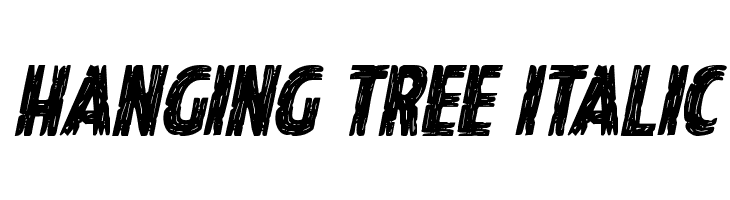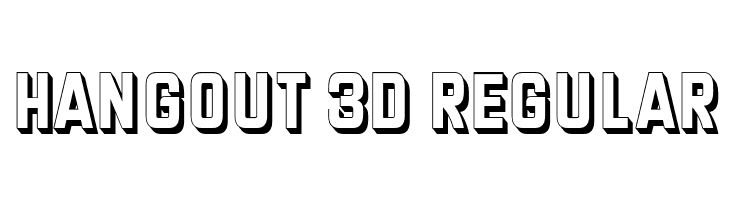
A bold, hand-drawn italic font with a textured, sketch-like appearance.
A bold, distressed, hand-drawn font with a rugged, energetic style.
A bold, textured, hand-drawn font with a dynamic and edgy style.
A bold, hand-drawn font with a rough, textured, and dynamic appearance.
A bold, distressed font with a hand-drawn, textured appearance.
A bold, textured, staggered italic font with a hand-drawn appearance.
A bold, hand-drawn font with a staggered, textured appearance.
A bold, hand-drawn font with a rugged, textured appearance.
A bold, 3D geometric font with a modern and impactful design.